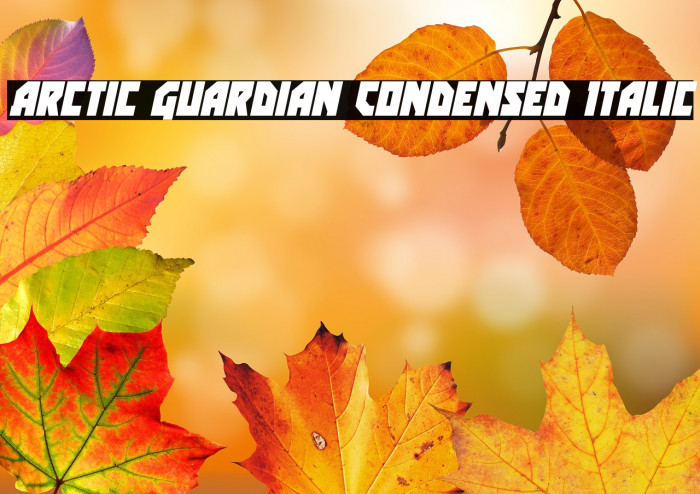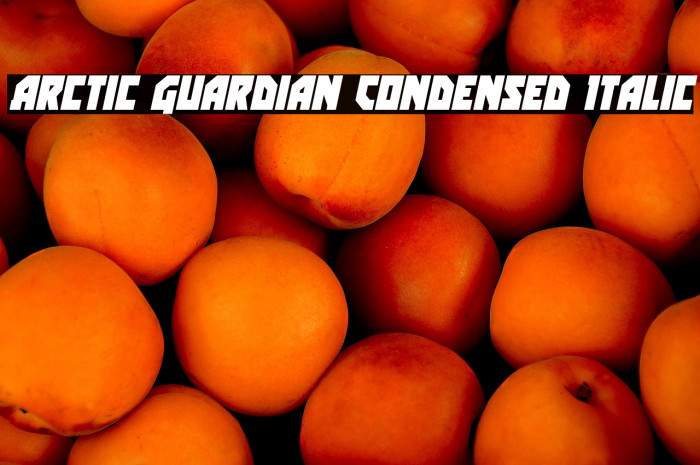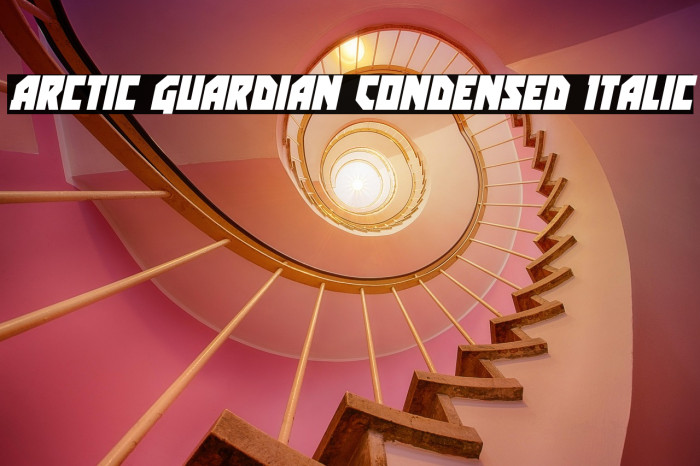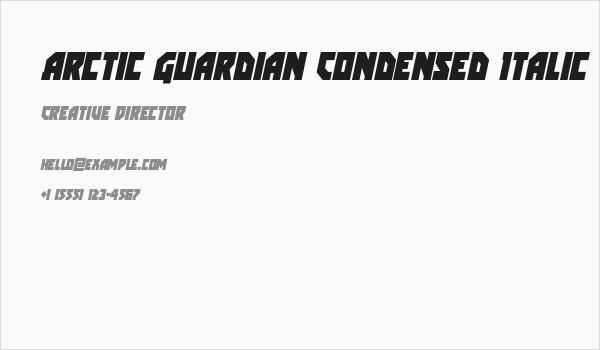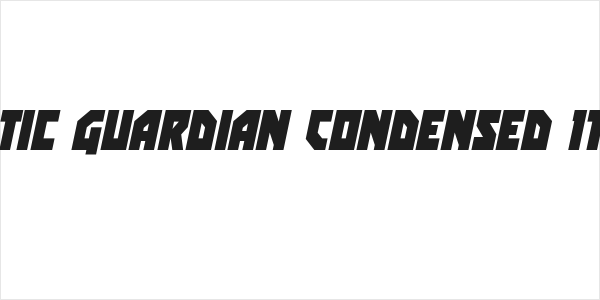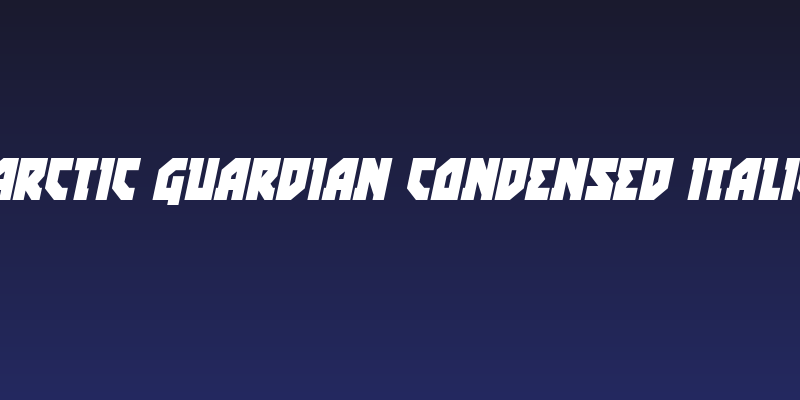
Arctic Guardian Condensed Italic Font
Arctic Guardian Condensed Italic Description
This font features a bold and dynamic style with a distinctly angular and geometric design. The characters are sharply cut, giving them a futuristic and aggressive appearance. The condensed nature of the font allows for tight spacing, making it suitable for impactful headlines and titles. The italic slant adds a sense of motion and urgency, enhancing its modern aesthetic. The uppercase and lowercase letters maintain a consistent style, with numbers and special characters following the same bold and angular theme. This font is ideal for projects that require a strong visual presence and a contemporary edge.
| Proposed Projects | Ideal for sports branding, video game titles, sci-fi movie posters, and dynamic advertising campaigns. |